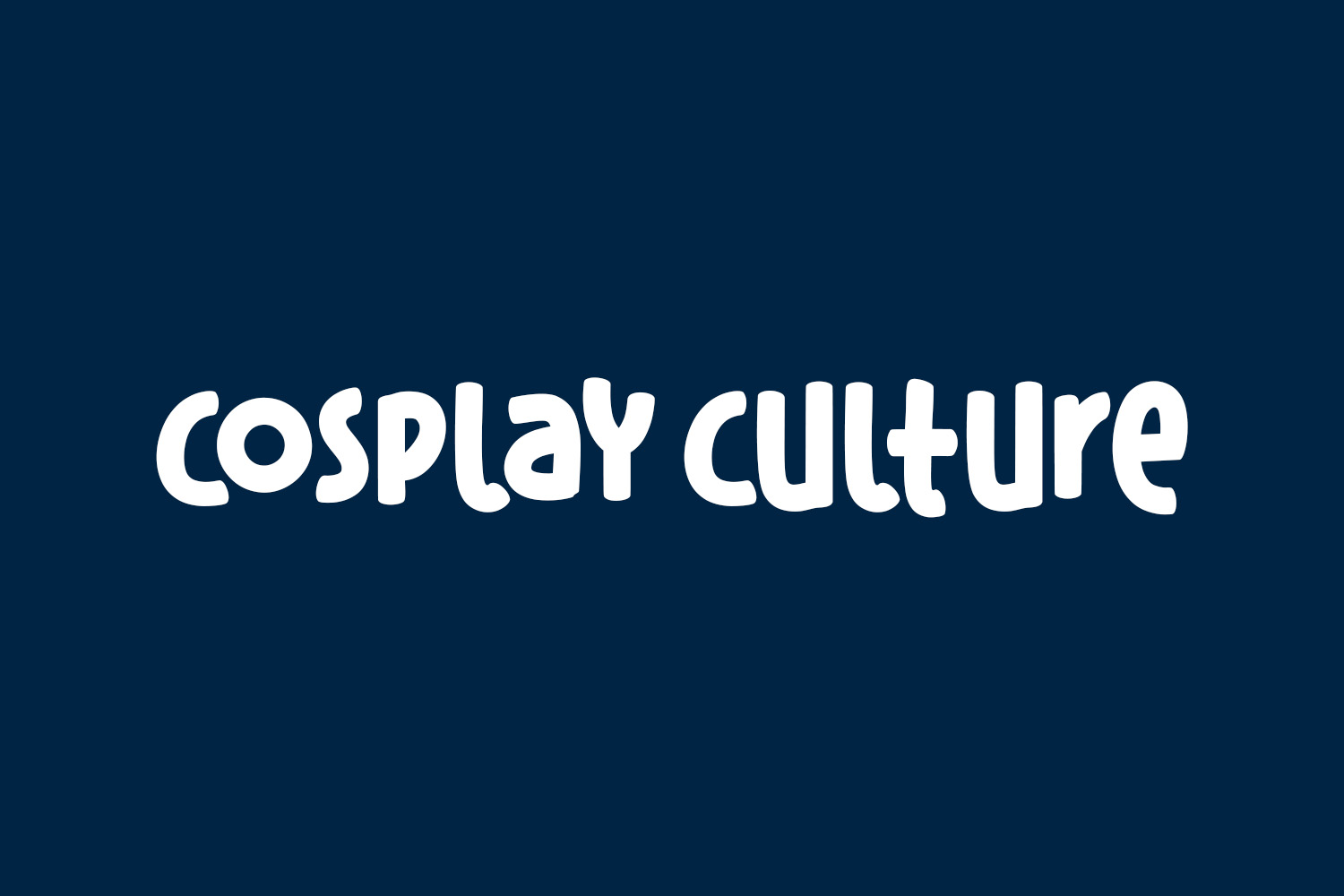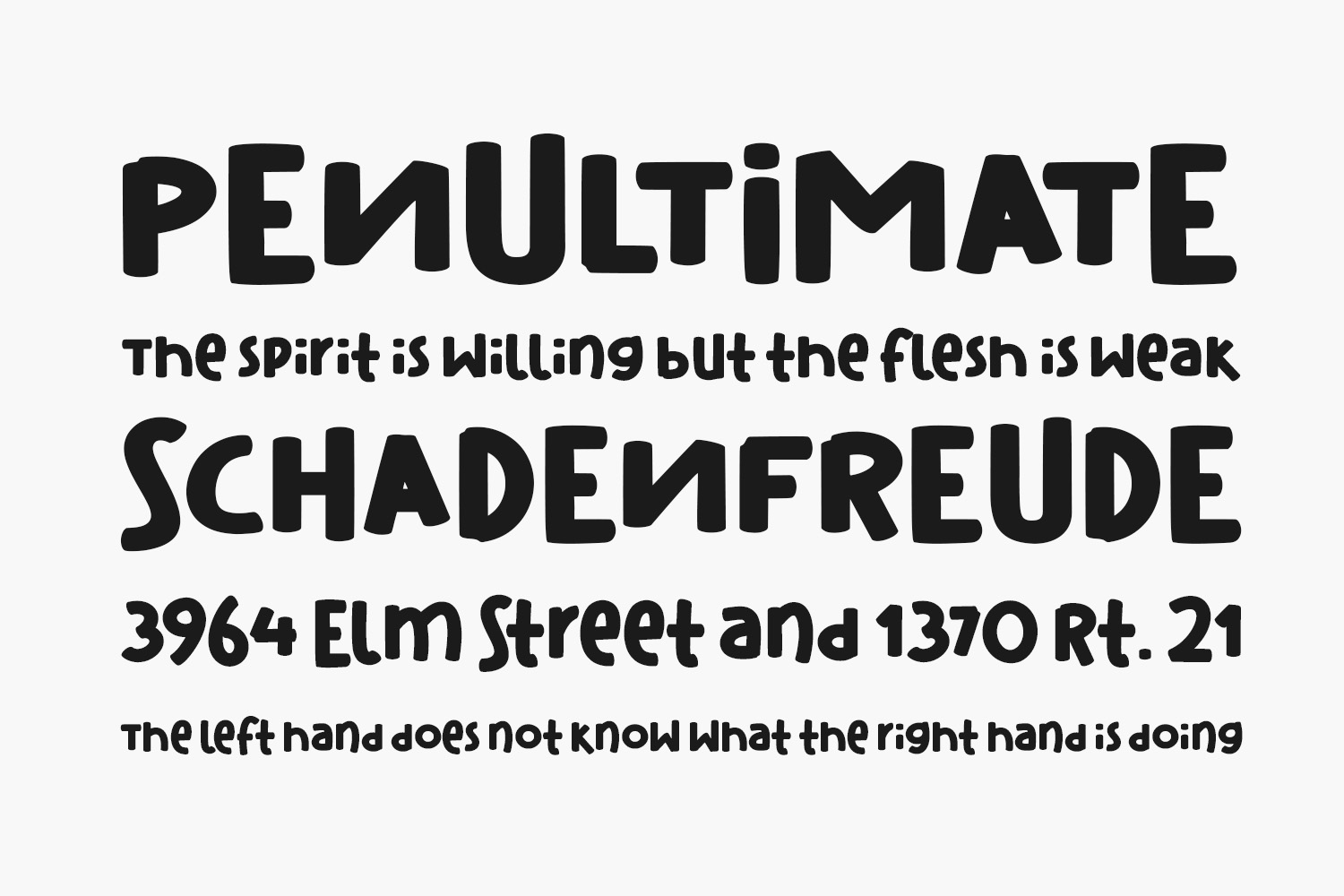
Unleash the creativity with Cosplay Culture Free Font, a versatile and playful display font that suits a broad range of applications, from greeting cards to headlines and beyond! Incorporate it into any of your creative projects, and experience its ability to impart a clean and exquisite feel to your designs. Cosplay Culture Free Font was designed by Masa Aska Sanurumi and is free for personal use only. Please purchase the full version for commercial use.